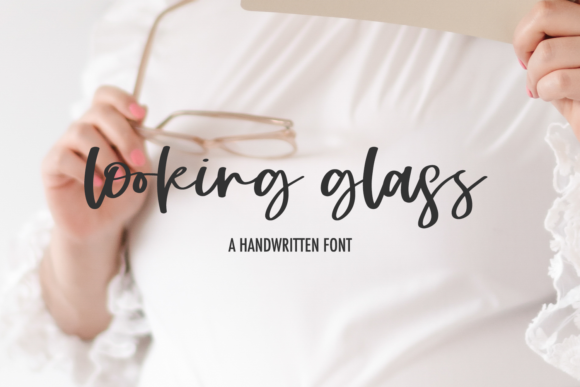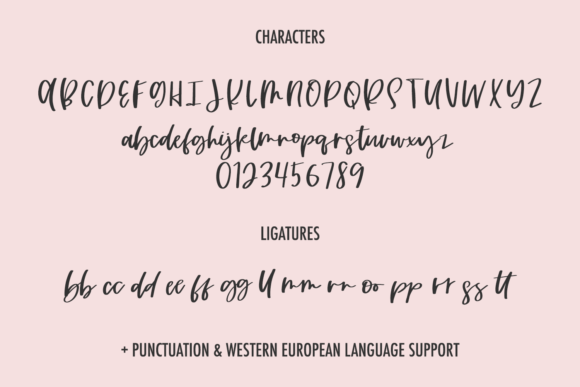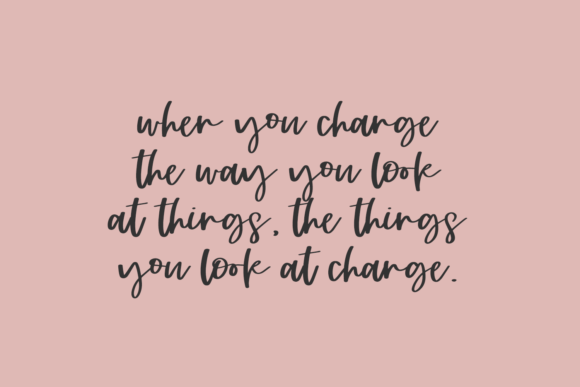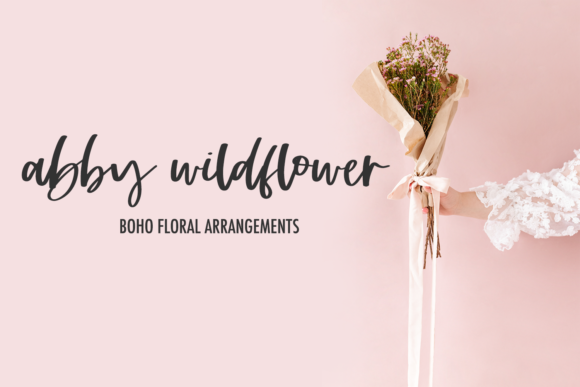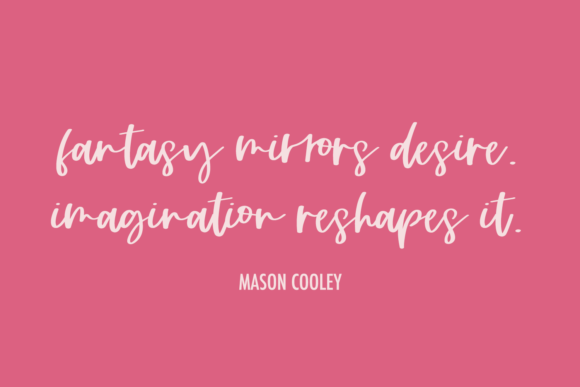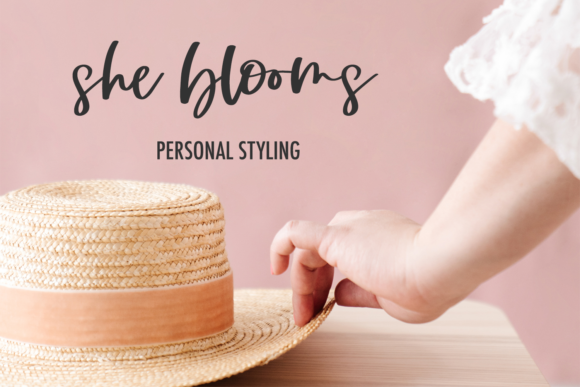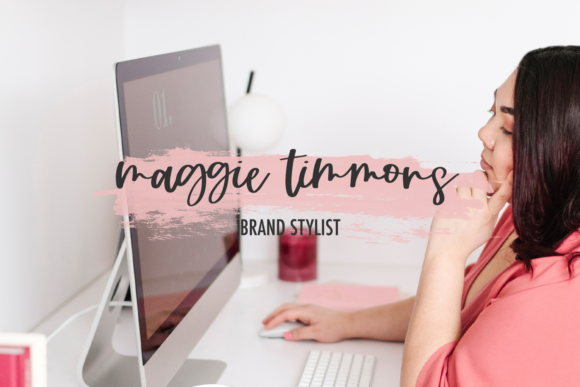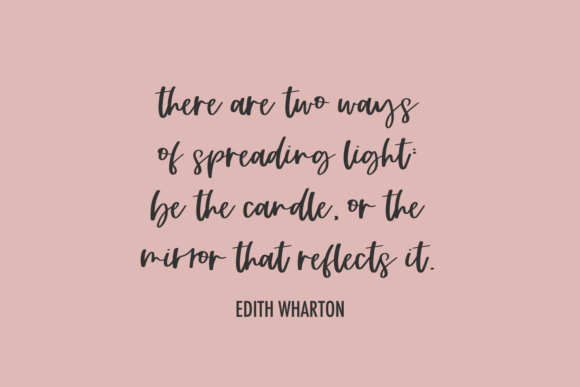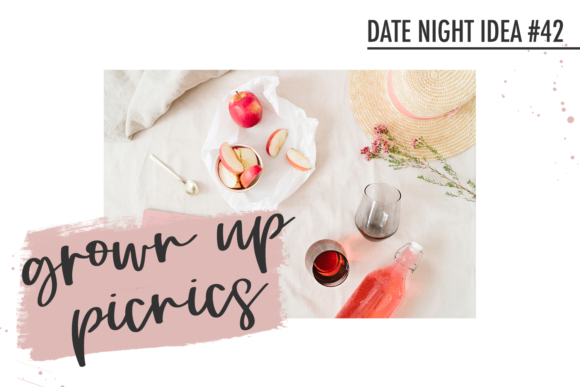
About Looking Glass Script Font
Looking Glass Script is a handwritten font with a few ligatures. Looking Glass has thicker lines, reminiscent of a marker or sharpie, and has a slight feminine bounce.
Looking Glass Script is best for:
– logos + branding, like beauty, cosmetics, and health brands
– website design + website accents – think design blogs, travel blogs, fashion blogs, & more
– clean print design, like magazines + flyers
– header elements that need a handwritten touch
– quote graphics for social media